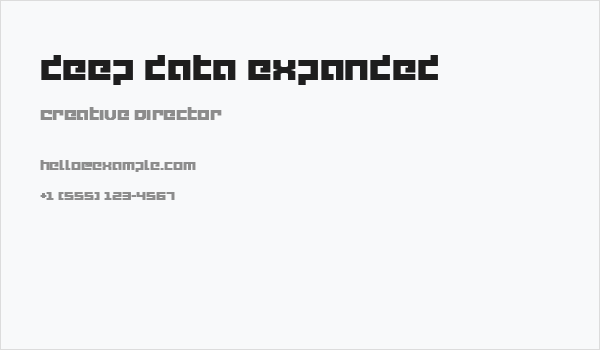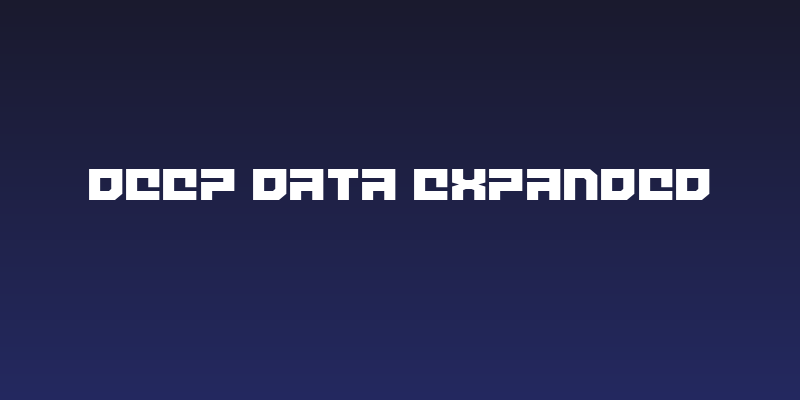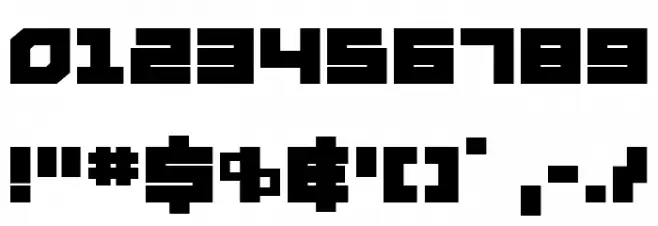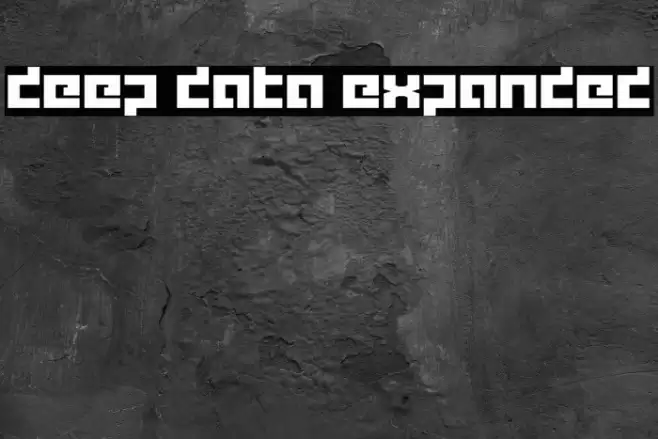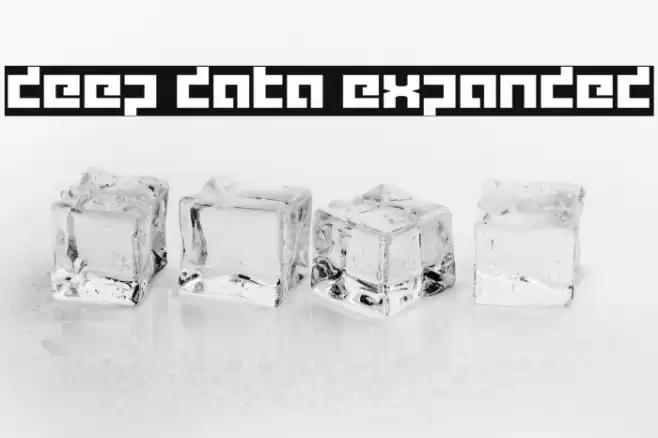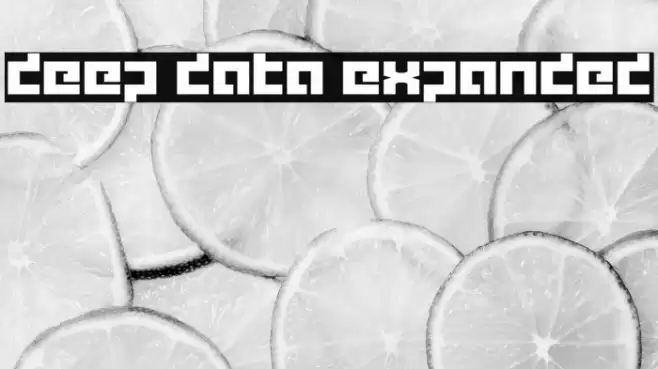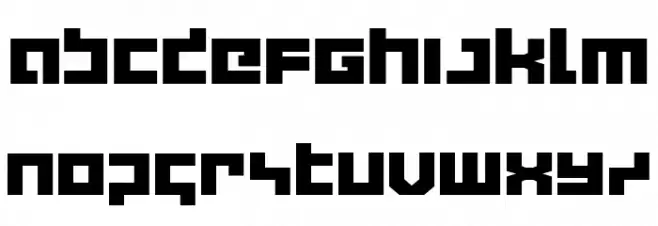
deep data expanded Font
✎ Pixel
| Категория | Pixel |
| Область применения | Logos, Headlines, Digital displays |
| Рекомендуемые проекты | Ideal for tech-related branding, video game graphics, digital art projects, and futuristic-themed designs. |